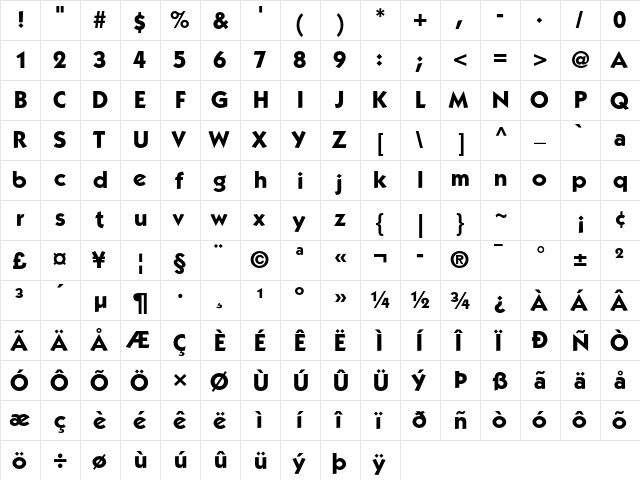
ITC Kabel Std Bold
| Designer | Rudolf Koch |
Design Context for ITC Kabel Std Typeface
ITC Kabel Std offers clean, dependable letterforms without strong stylistic allegiance, making it a practical choice for designers who need flexibility. The heavy weight commands attention and anchors typographic hierarchies.